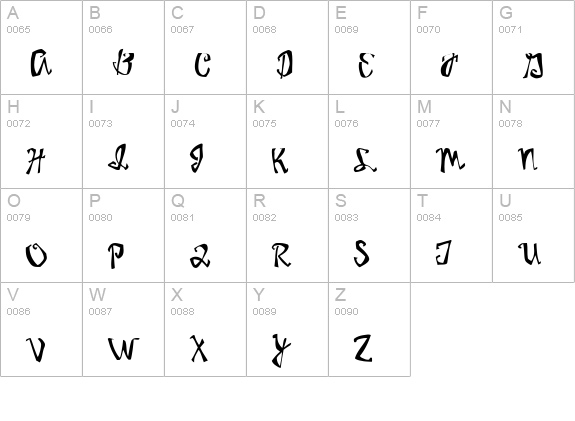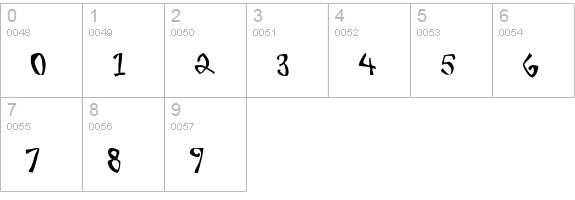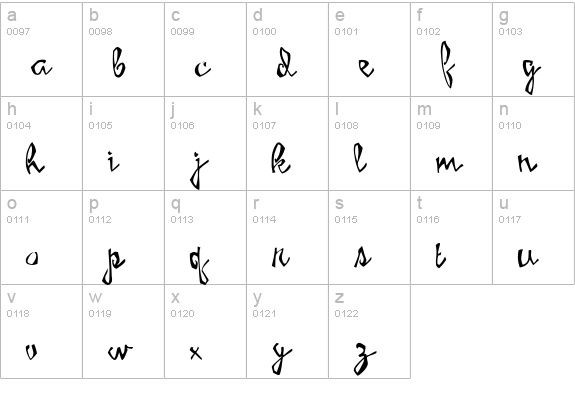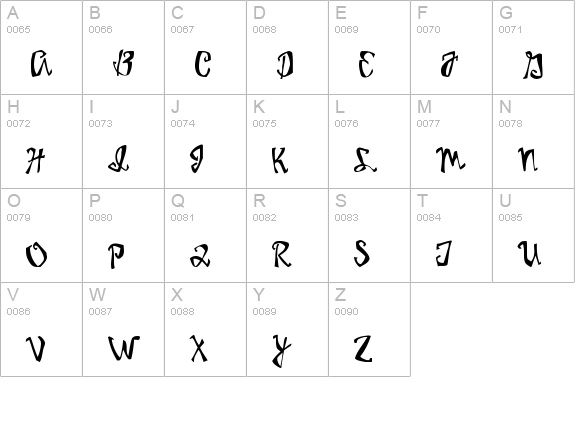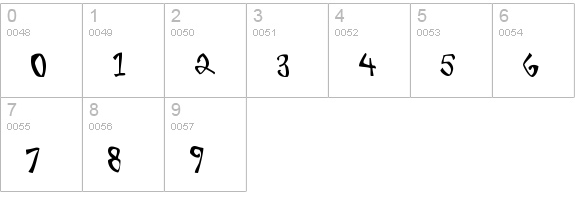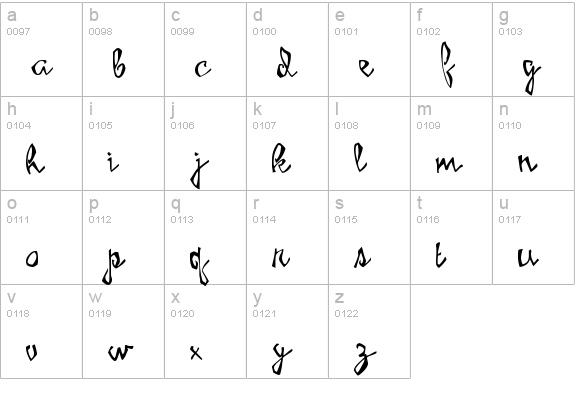
Birdhouse Medium Font Details
Birdhouse Medium is a balanced, medium-weight variant in the Birdhouse typeface family \xE2\x80\x94 well suited to sub-headlines, navigation, and balanced editorial work.
Introducing Birdhouse Medium font, a charming and versatile typeface that combines modern elegance with a touch of whimsy. This font is perfect for a wide range of creative projects, from branding and packaging to social media graphics and invitations. With its clean lines and subtle curves, Birdhouse Medium exudes sophistication and style. Best of all, Birdhouse Medium font is freely available to download at FontsMarket.com. Whether you're a seasoned designer or just starting out, this font is sure to add a unique flair to your work. Don't miss out on the opportunity to enhance your projects with this beautiful and distinctive typeface. Download Birdhouse Medium today and let your creativity soar!